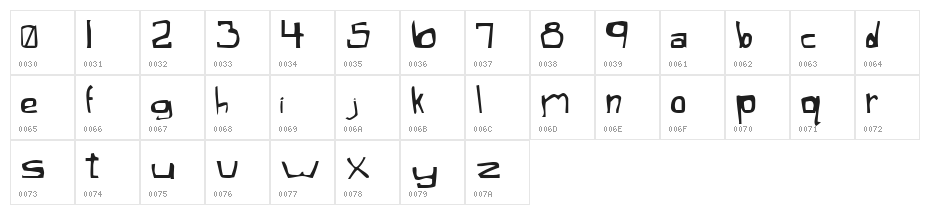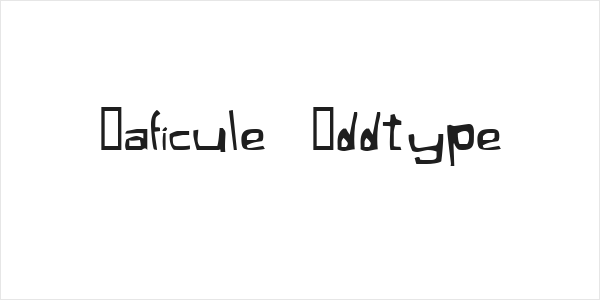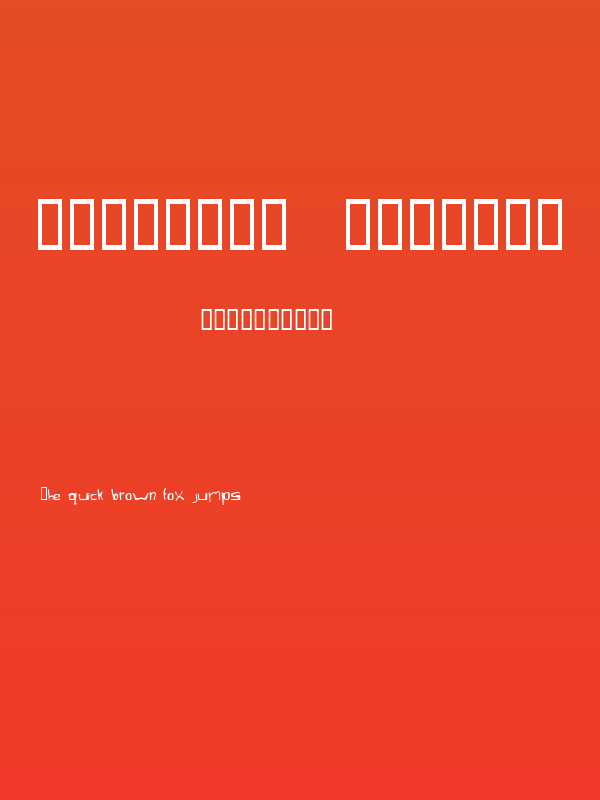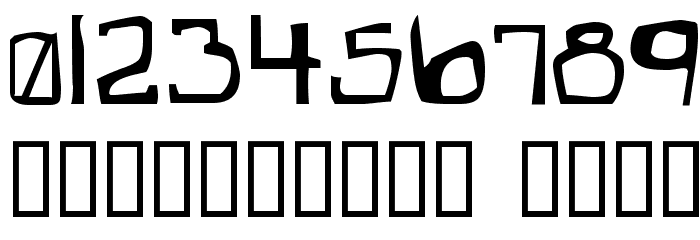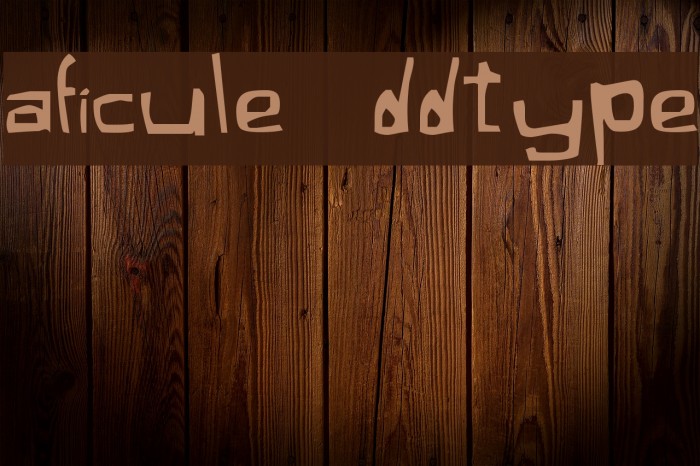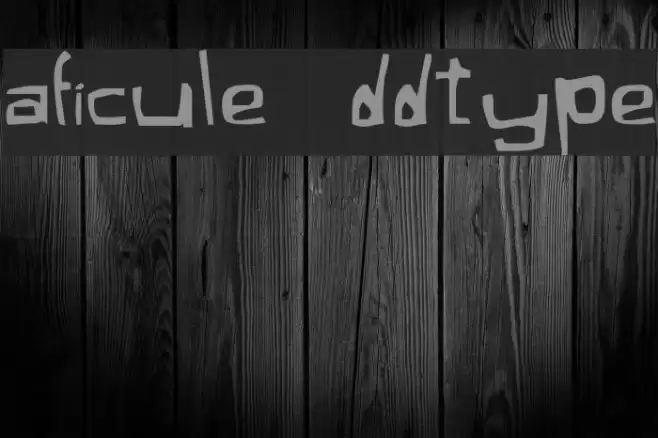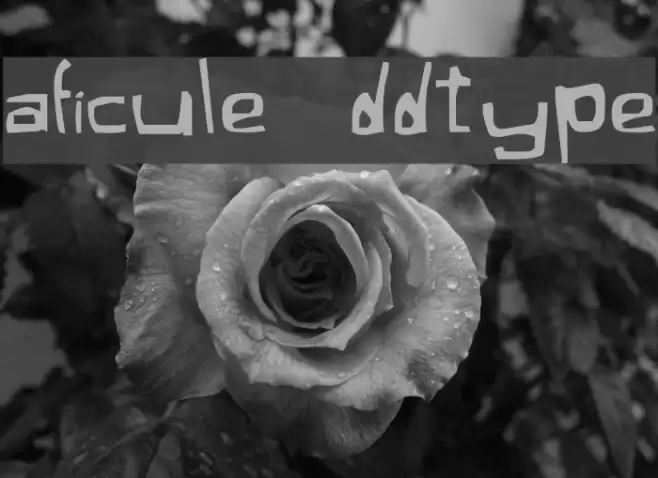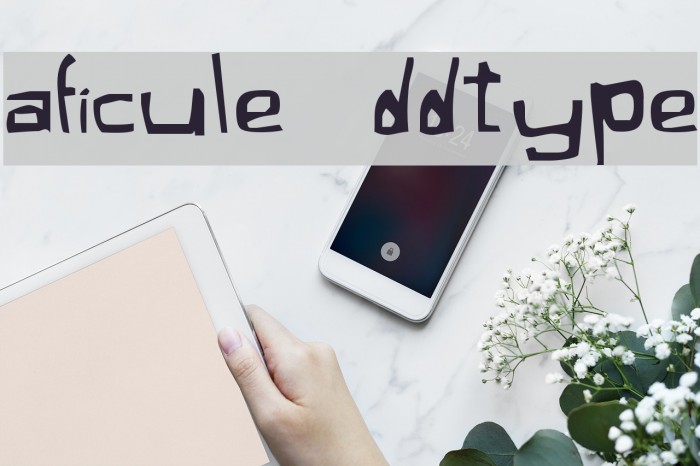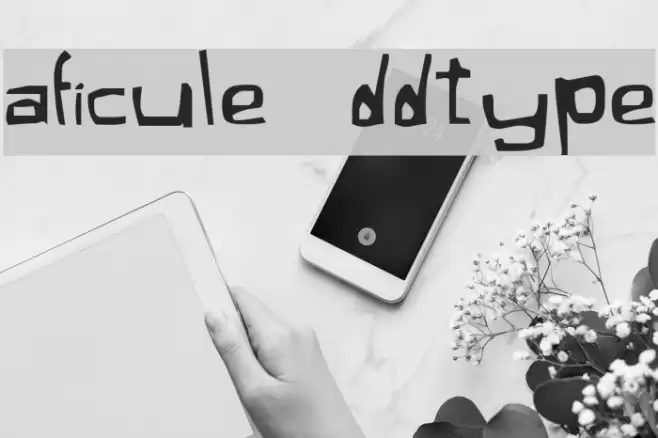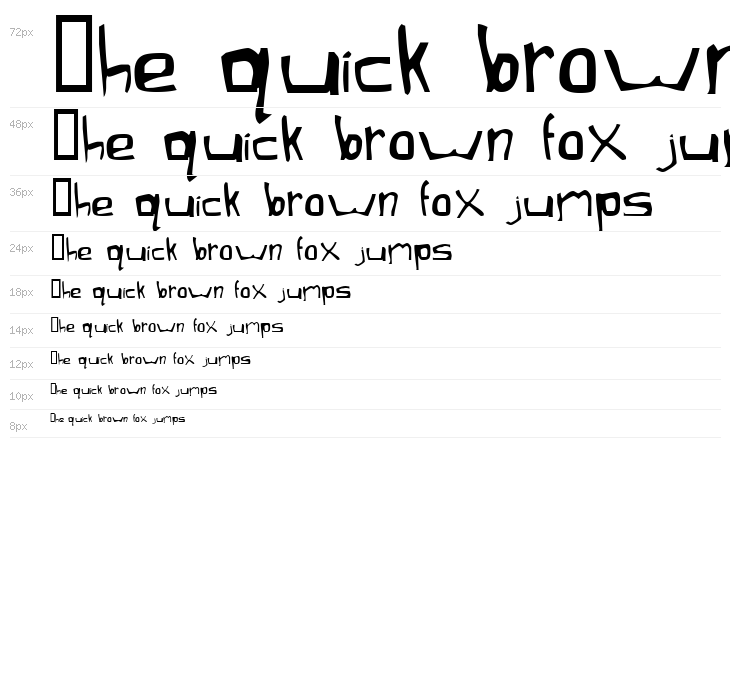
Xaficule Oddtype Font
| Stil general | Whimsical and Artistic |
| Caz de utilizare | Logos, Posters, Creative Projects |
| Proiecte propuse | Ideal for creative projects such as children's books, artistic posters, and playful branding materials. |